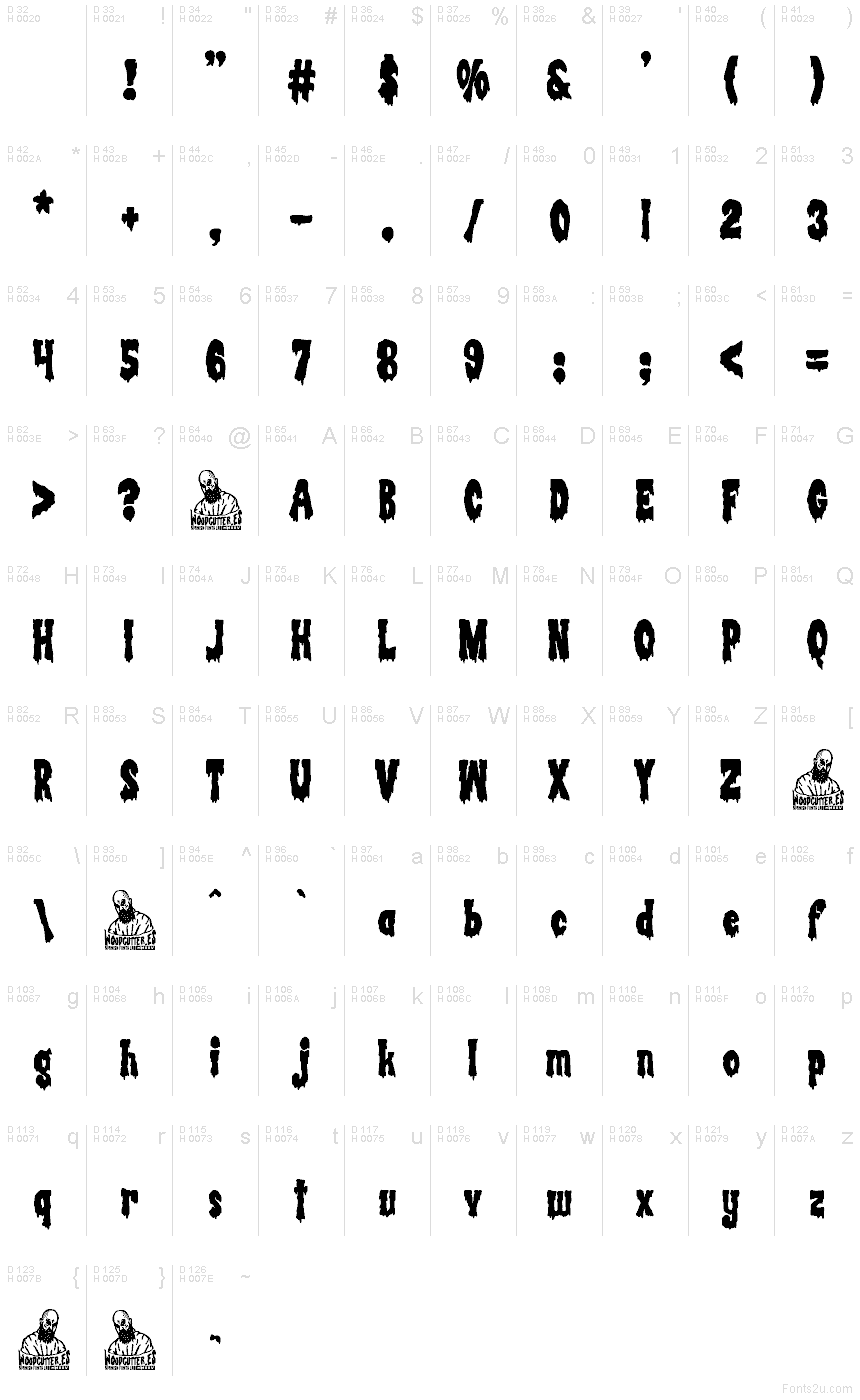
The Comic Horror
The Comic Horror font by Woodcutter is a free scary display font. Thick, inky letters sag with comic-book drips and ragged edges, landing that sweet spot between campy and creepy. The chunky weight keeps it readable while the gooey silhouettes deliver instant mood—like fresh paint that hasn’t stopped oozing.
Using The Comic Horror, headlines snap to attention on Halloween posters, haunted house flyers, B‑movie titles, escape room signage, YouTube thumbnails, and party invites. Set it big with a touch of extra tracking to let the drips breathe. For supporting text, pair this free font with a clean condensed sans to keep the chaos contained and the message clear.